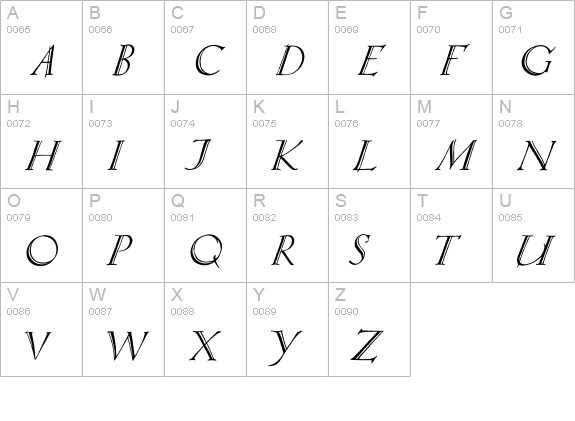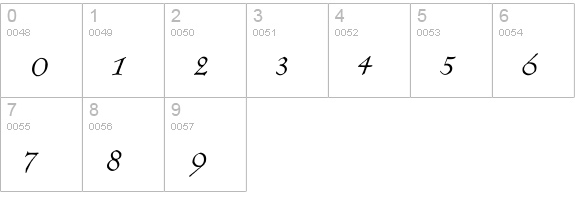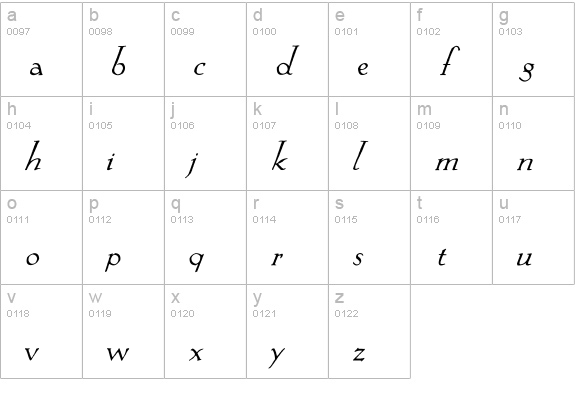
Springtime Alternate Font Details
Springtime Alternate font is a delightful and charming typeface that captures the essence of the blooming season. Its playful and elegant design evokes a sense of freshness and renewal, making it the perfect choice for spring-themed projects. With its whimsical letterforms and graceful curves, this font exudes a sense of joy and optimism. Best of all, Springtime Alternate font is available for free download at FontsMarket.com. Whether you're working on invitations, greeting cards, or any other creative project, this font will add a touch of whimsy and sophistication. Embrace the spirit of spring with the beautiful Springtime Alternate font and make your designs come alive.